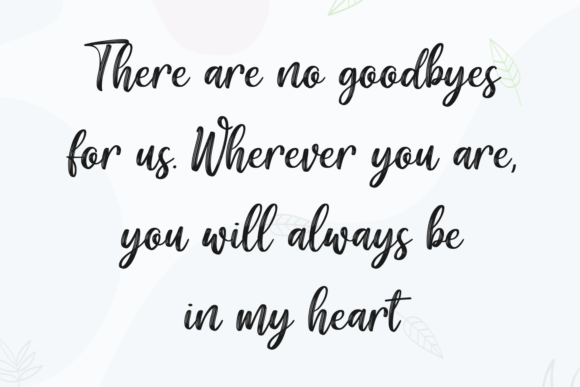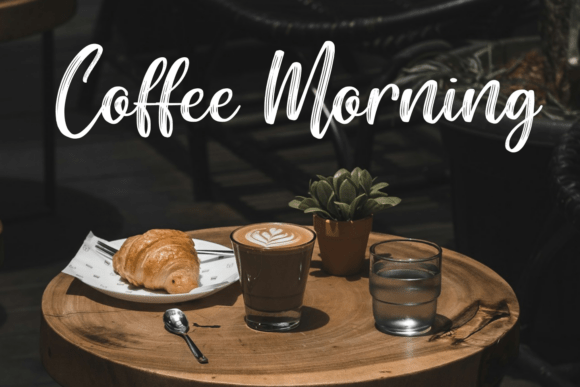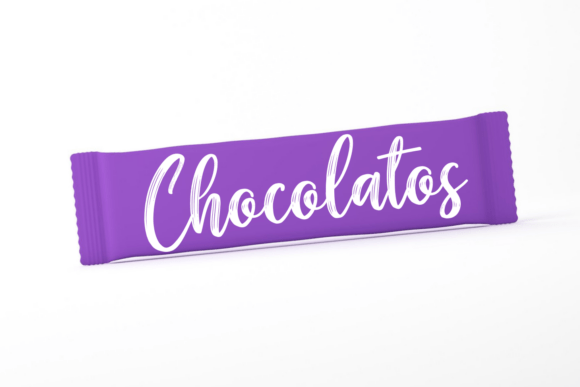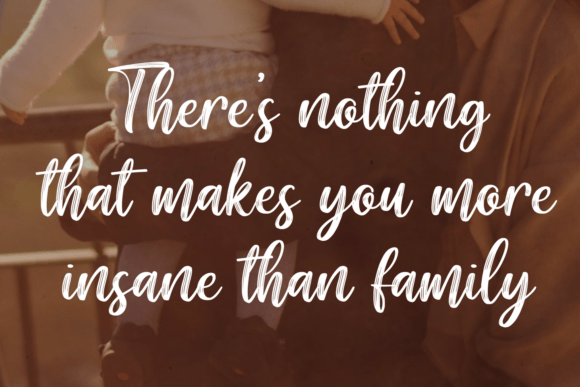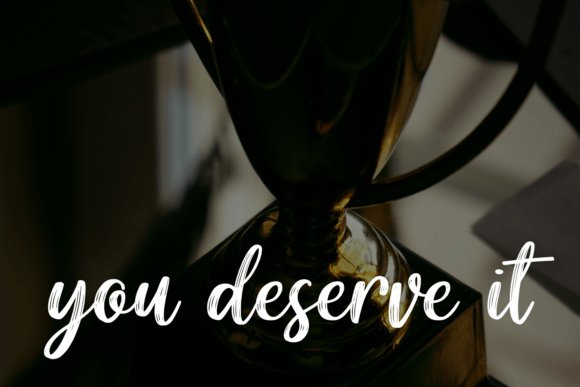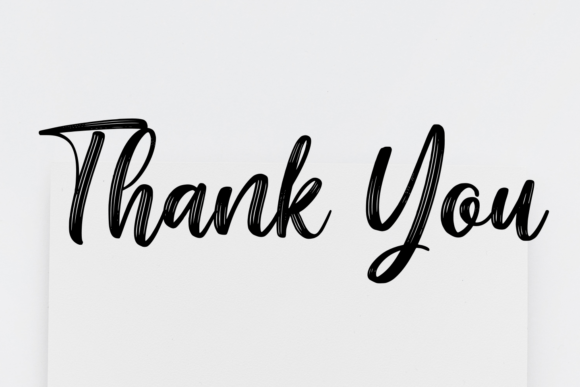
Introduction to Longlasting Font
Have you ever been working on a creative project, pouring your heart and soul into it, and then, the perfect font comes along to elevate the entire design? That moment of serendipity is what makes being a designer so exciting. For those times when you need a font that truly makes a statement, look no further than the Longlasting Font. This stunning handbrush calligraphy font is designed to leave a lasting impression, with expressive strokes and natural pressure changes that capture the energy of real brush lettering.
Whether you’re working on a high-quality logo, a poster, or packaging design, the Longlasting Font is a valuable design resource that can add a touch of sophistication and emotion to your project. With its transparent background and high-quality design, it’s the perfect addition to any creative endeavor. And the best part? It’s available for free download, making it an accessible and valuable resource for designers of all levels.
Honest Review: Longlasting Font
I recently stumbled upon the Longlasting Font, and I have to say, it’s a game-changer for my creative projects. The high quality of this font is undeniable, making it a valuable design resource for any project.
The Longlasting Font boasts a sleek and modern design, perfect for a wide range of applications, from logos to digital signage. I particularly love the transparent background option, which allows for seamless integration with any background image or color.
- Some users may find the font too modern or trendy ⚠️
- The font may not be suitable for projects that require a more traditional or classic look ⚠️
Overall, I’m thoroughly impressed with the Longlasting Font. Its versatility, high quality, and free download make it an excellent addition to any designer’s toolkit. I’d highly recommend it for any creative project that requires a modern and sleek font.
Tips for Getting the Most Out of Longlasting Font
Longlasting Font is a high-quality design resource that can elevate your creative project. To get the most out of it, use it in conjunction with a transparent background to create a sleek and modern look. Experiment with different font sizes and styles to add visual interest to your design.